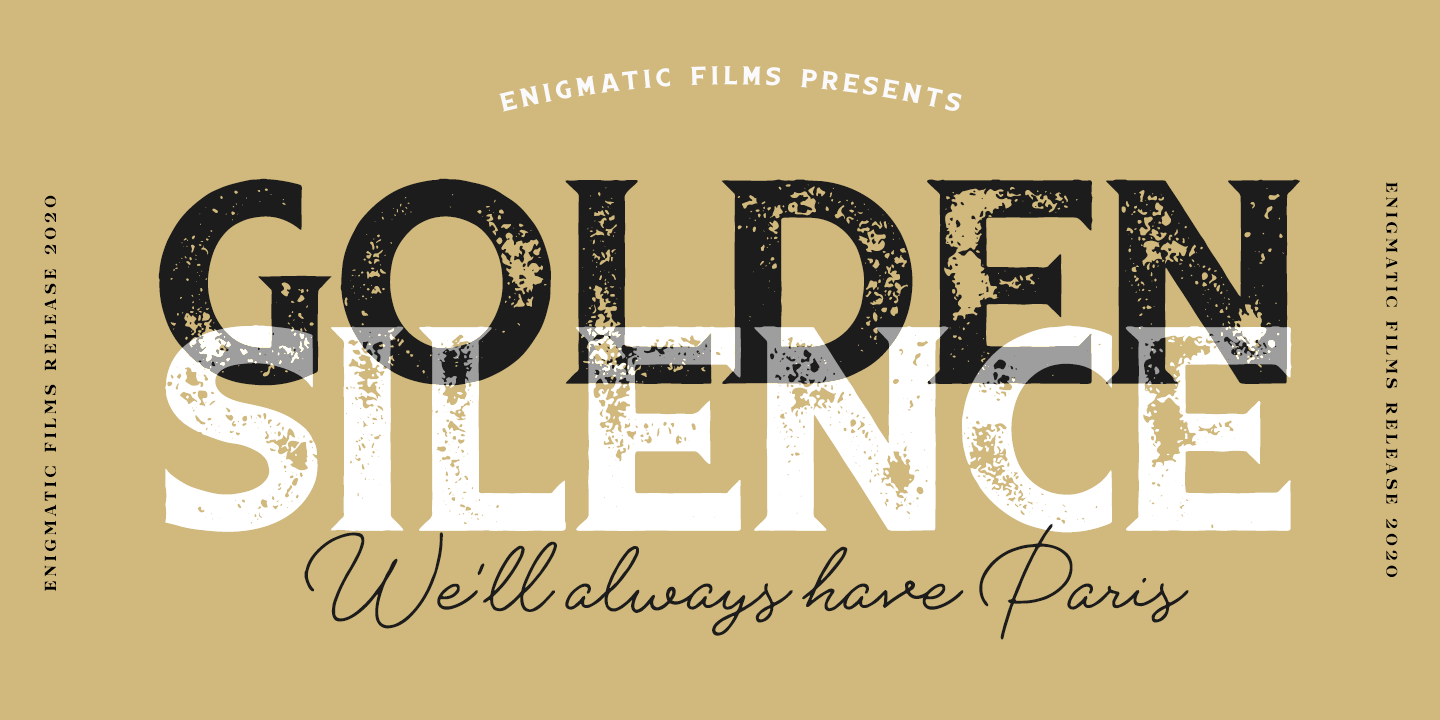
About Boardwalk Avenue Rough
Boardwalk Avenue Rough is a textured version of Boardwalk Avenue. It\’s a robust type collection of three styles and two weights of each. It\’s divided into Boardwalk Pen, Boardwalk Antiqua and Boardwalk Serif. Boardwalk Avenue\’s core is a connected mono…